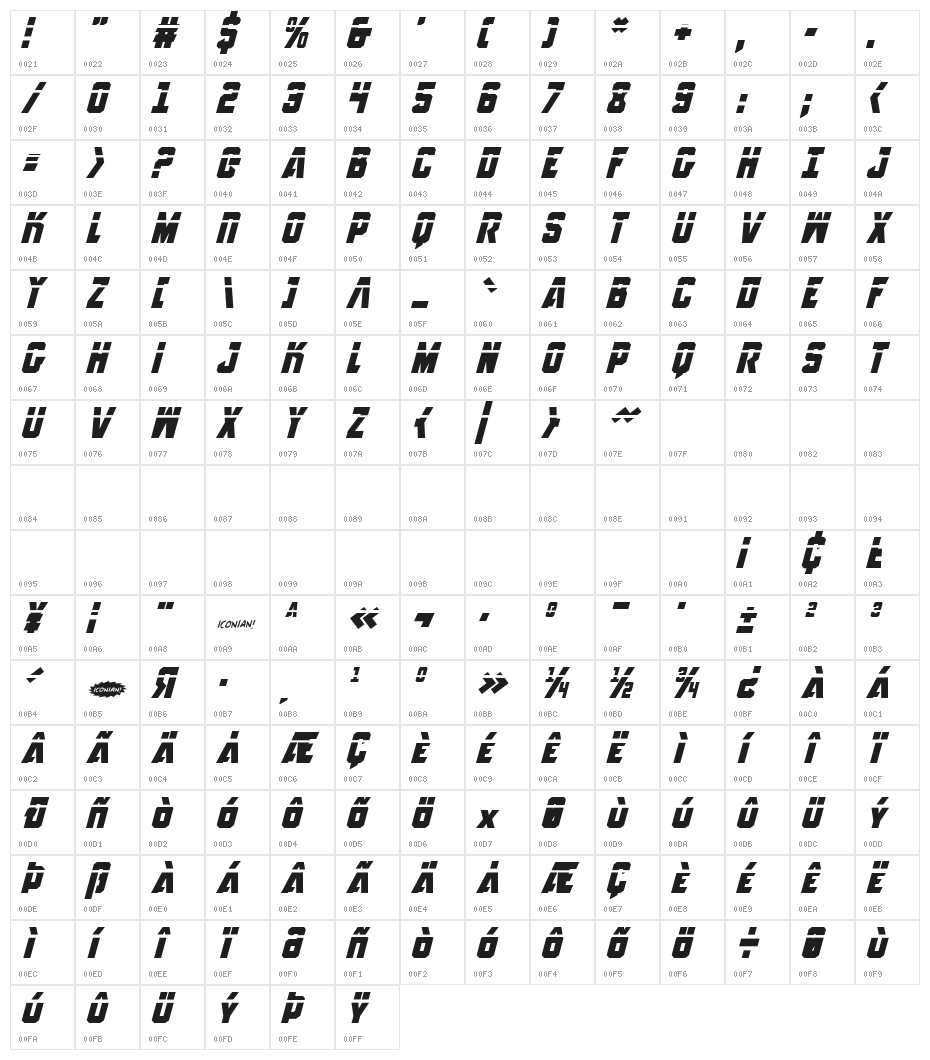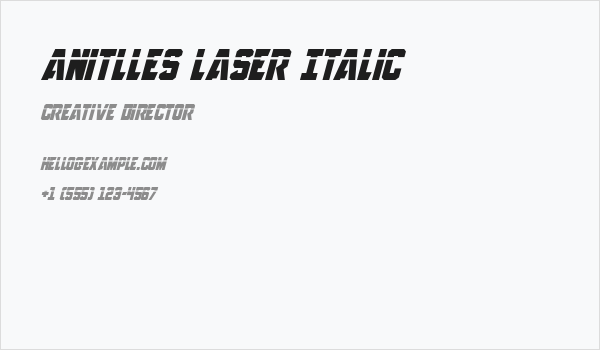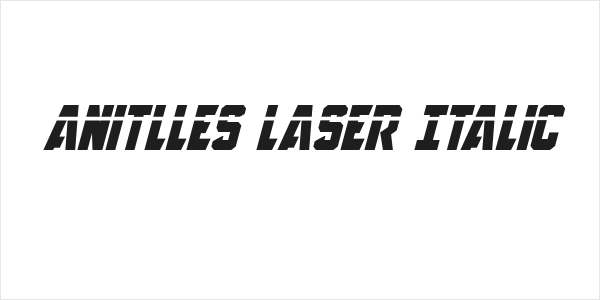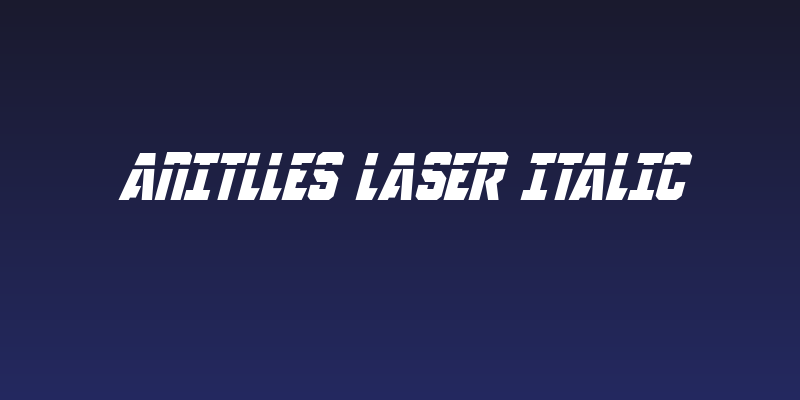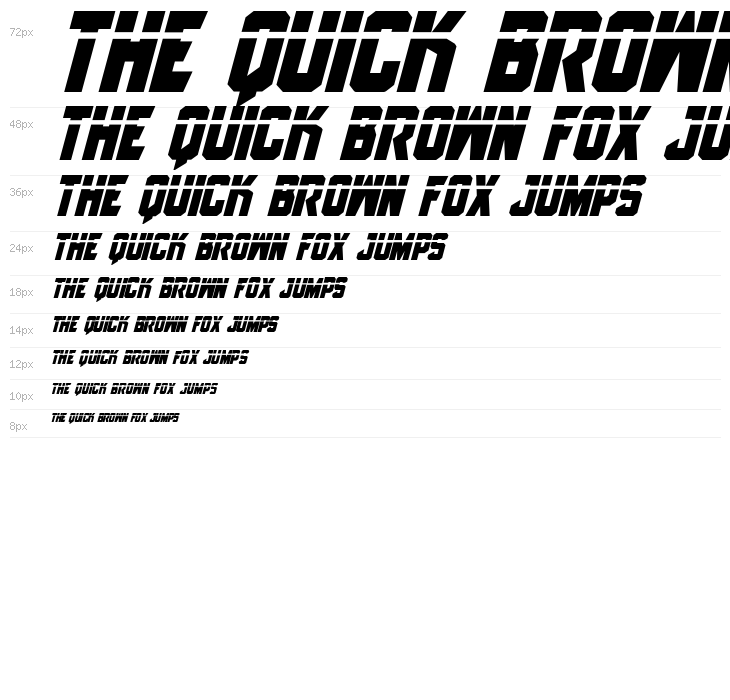
Anitlles Laser Italic Font
Anitlles Laser Italic Description
This font features a bold and dynamic style with a futuristic and angular design. The characters are sharply cut with a slanted orientation, giving a sense of speed and motion. The uppercase and lowercase letters maintain a consistent geometric structure, while the numbers and special characters follow the same bold and italicized theme. The font's strong presence and unique design make it suitable for attention-grabbing projects.
| Proposed Projects | Ideal for sci-fi themed designs, video game titles, sports branding, and dynamic posters. |